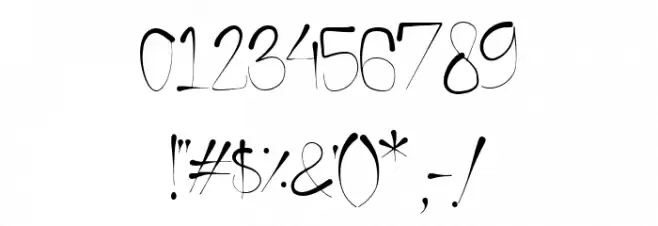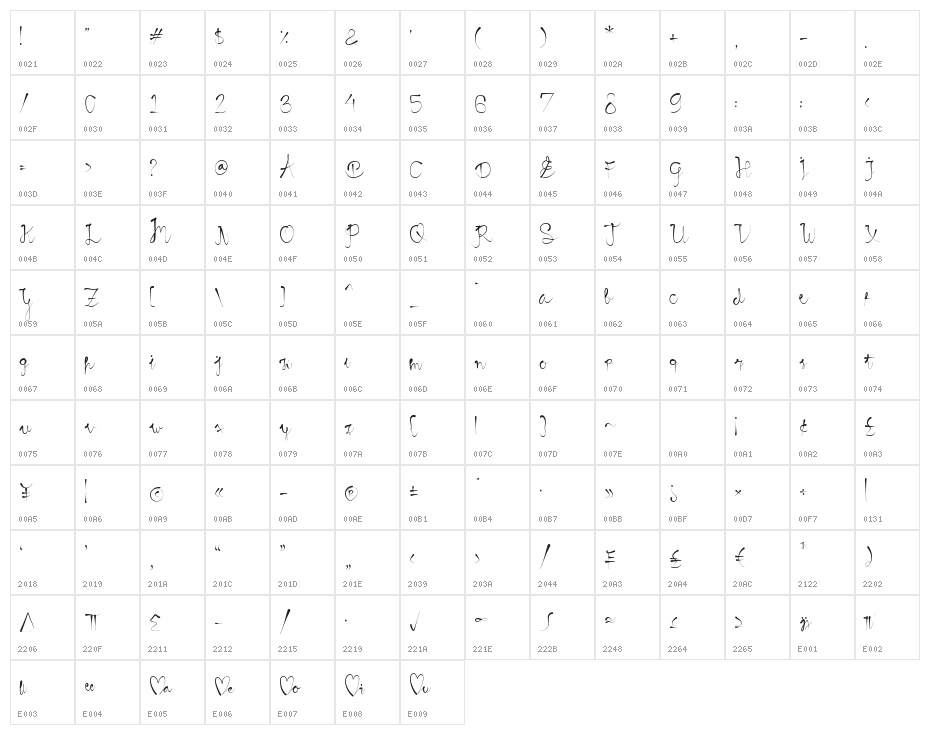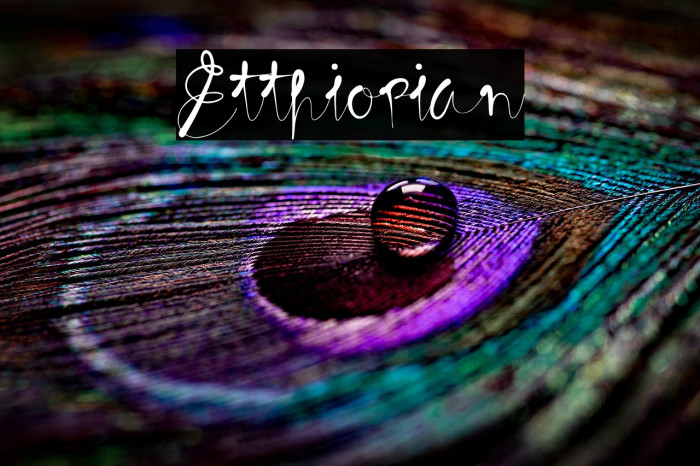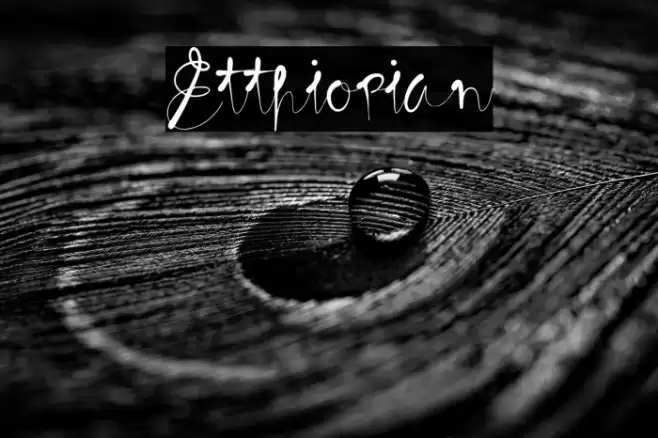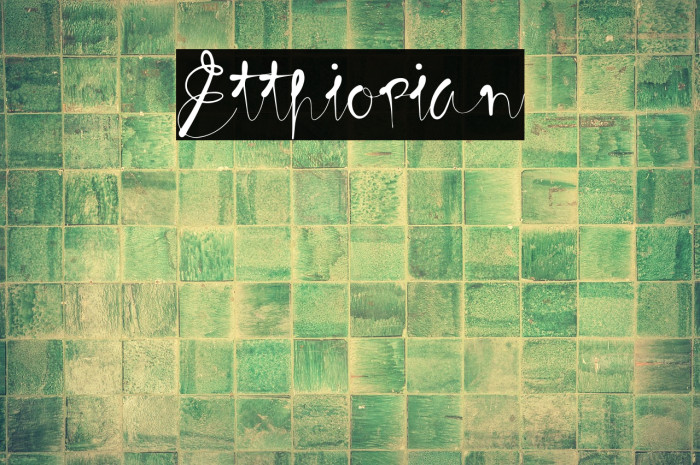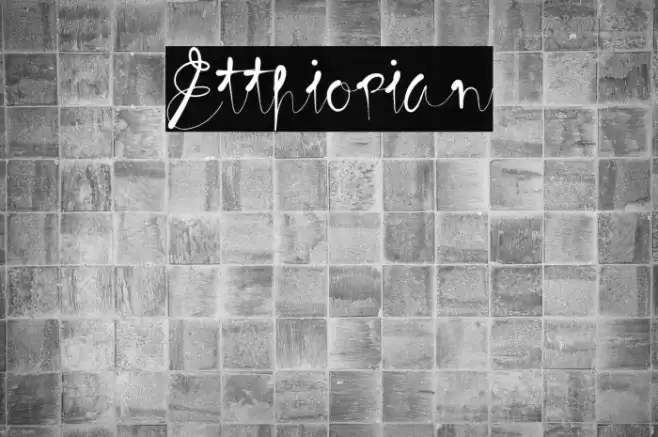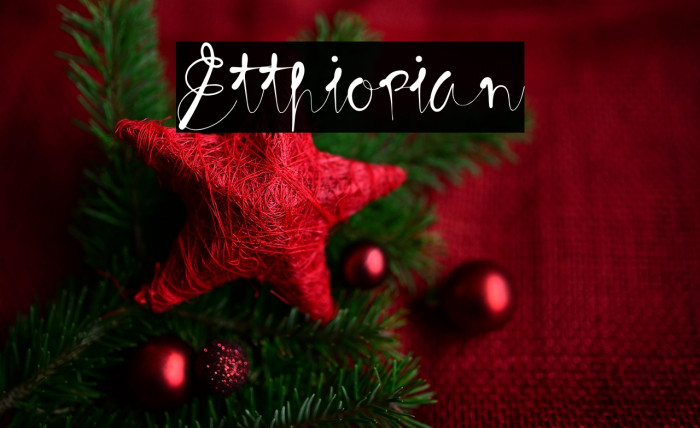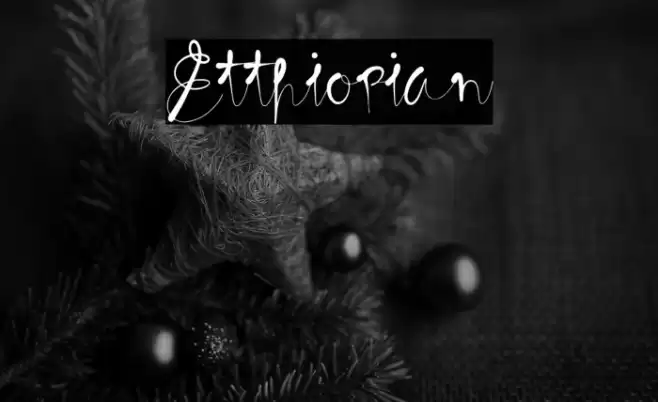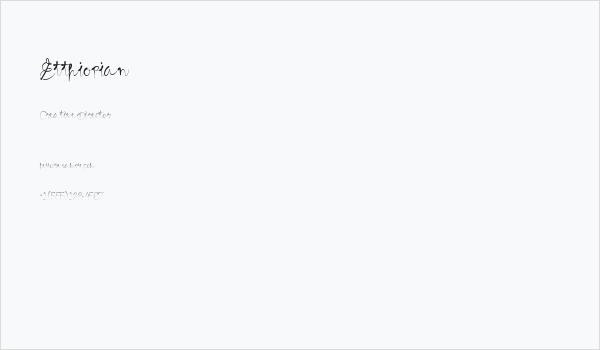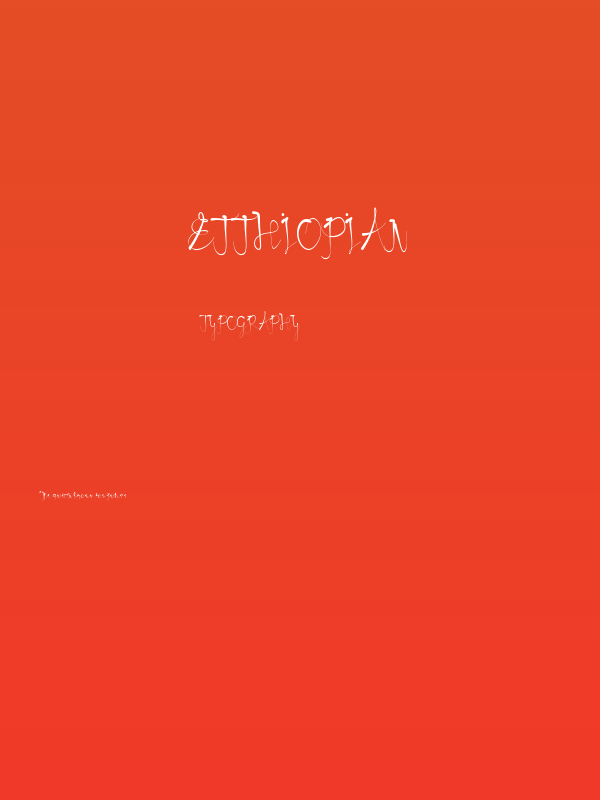
Etthiopian Font
Etthiopian Description
This font features a whimsical and artistic style, characterized by its flowing, cursive-like strokes and playful loops. The uppercase letters exhibit a unique blend of thick and thin lines, creating a dynamic contrast that adds visual interest. The lowercase letters maintain a consistent fluidity, with elongated ascenders and descenders that enhance its elegant appearance. Numbers and special characters are designed with the same creative flair, ensuring a cohesive look across all elements. The overall design is both expressive and sophisticated, making it suitable for projects that require a touch of creativity and elegance.
| Use Case | Logos, Invitations, Artistic Projects |
| Proposed Projects | Ideal for wedding invitations, artistic branding, greeting cards, and creative posters. |